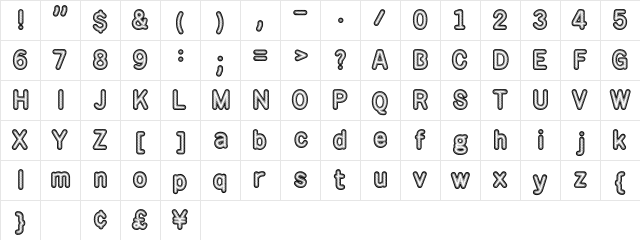
Rotondo Silver
Design Context for Rotondo Typeface
Rotondo takes a measured approach to typography — its balanced proportions and neutral character make it a reliable workhorse for both digital and print work.